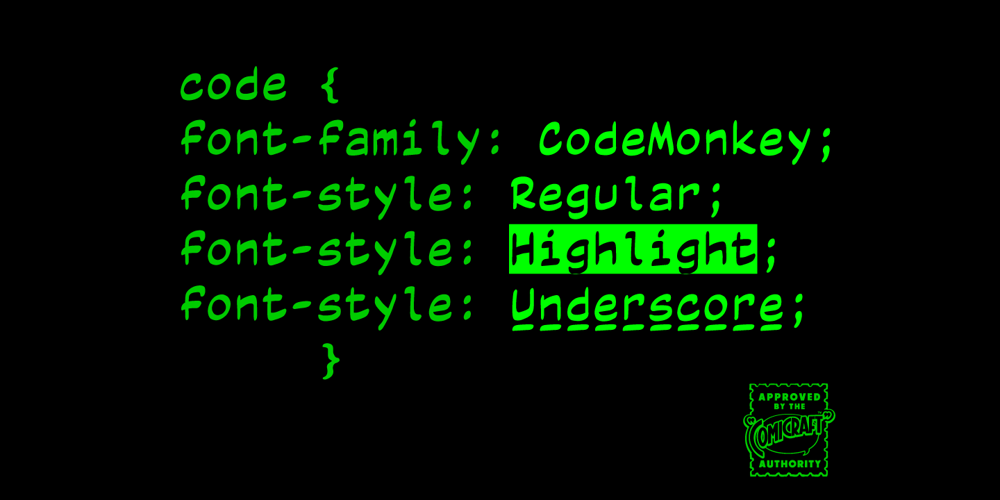
Code Monkey
Code Monkey font
Code Monkey Font Family was designed by John Roshell and published by Comicraft. Code Monkey contains 7 styles and family package options. Underpaid? Overworked? If you like Fritos, Jolt and Mountain Dew in your cubicle, your big warm fuzzy Donkey Kong heart is going to like these fonts a lot. Developed in conjunction with actual Code Monkeys*, this user-defined type IS defined — it’s loud and proud, and available in functional monospace for screen or elegant proportional spacing for print. When your pet project needs a soft, pretty face that’s visible from across the office, sit down and pretend to work with CodeMonkeyVariable. Released from the captivity of monospacing, these lovely letters can convey even your wildest story ideas. When your syntax needs to line up on screen, get monospaced out with CodeMonkeyConstant. Copy from other sources and your screen captures will look so sweet you’ll no longer have to pray your code complies to specs, because even your login page will look like dynamic rock star programming.